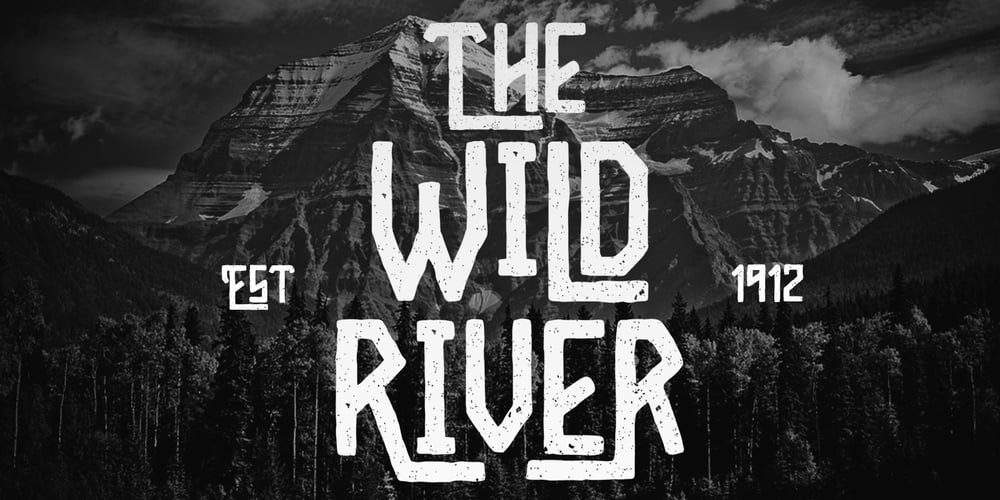
Wild River Font Family was designed by madededuk and published by madeDeduk. Wild River contains 1 styles and family package options. Hello I’m really excited to introduce Wild River with vintage style font with cool character! Wild River perfect for poster design, book covers, merchandise, fashion campaigns, newsletters, branding, advertising, magazines, greeting cards, album covers, and quote designs and more.Feature Uppercase Lowercase Number & Symbol International Glyphs Ligatures